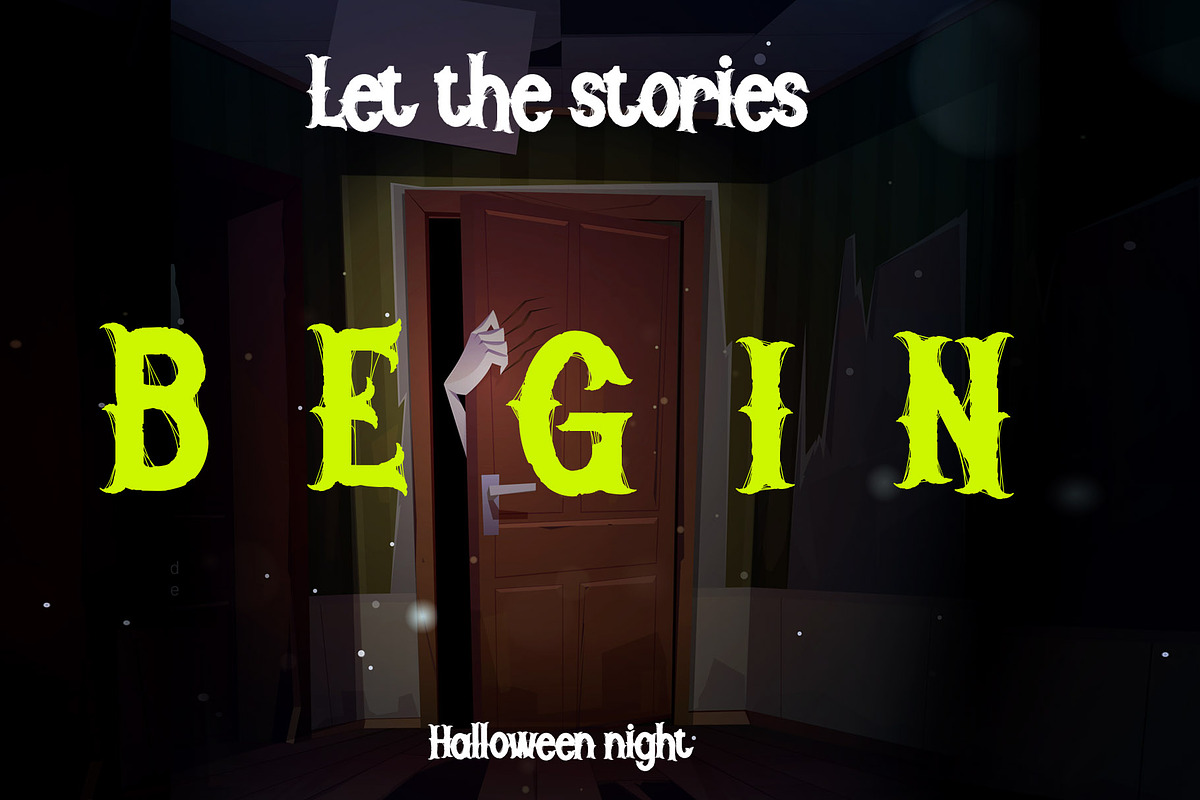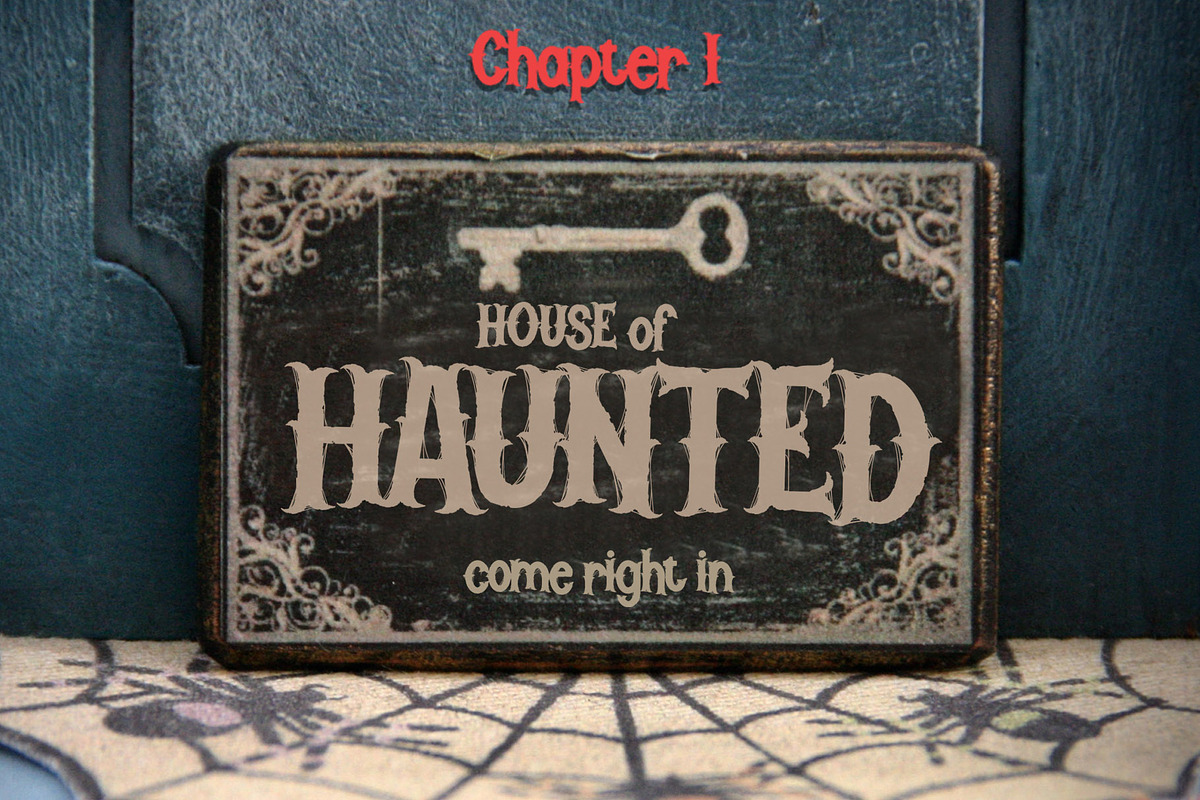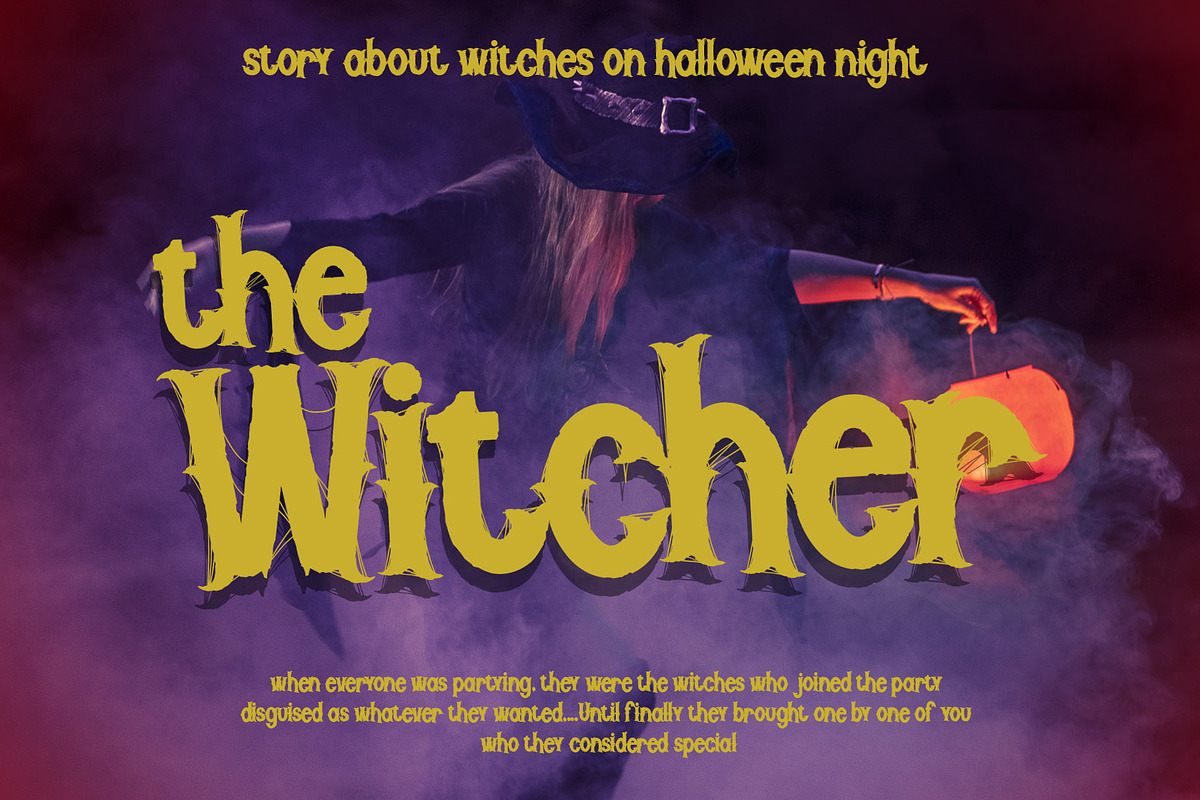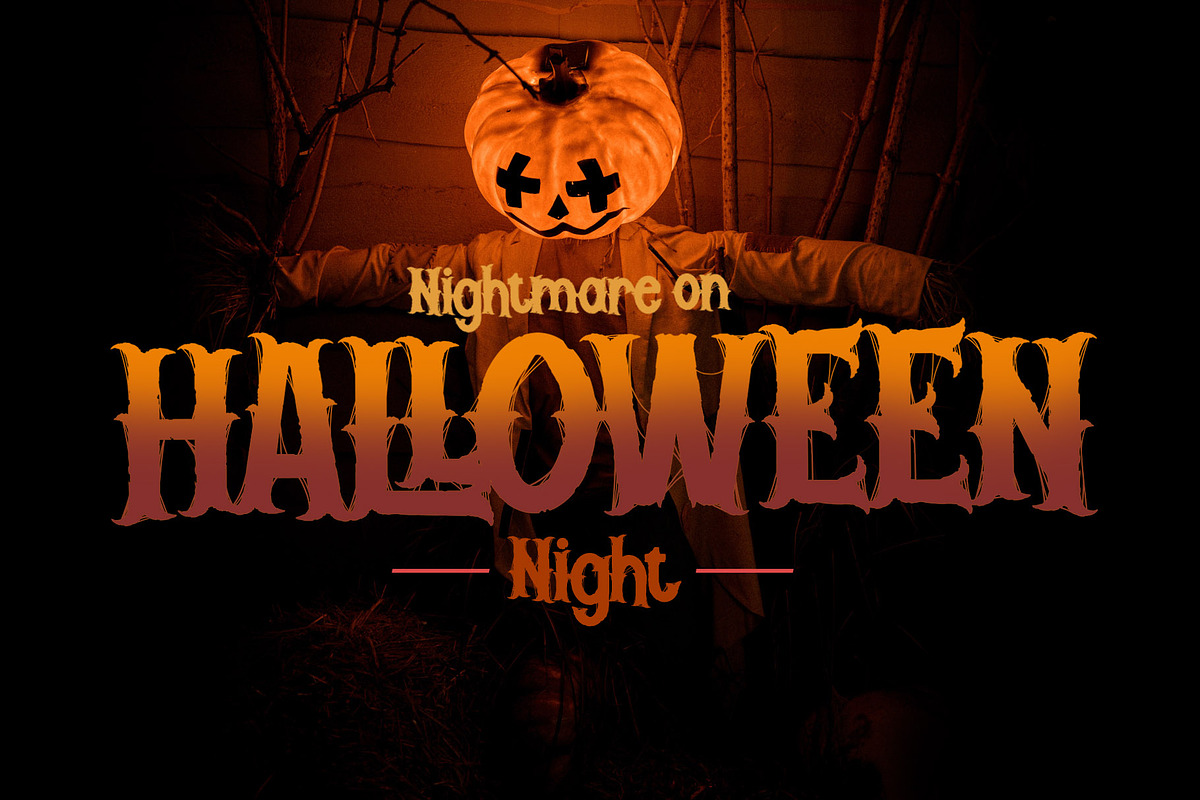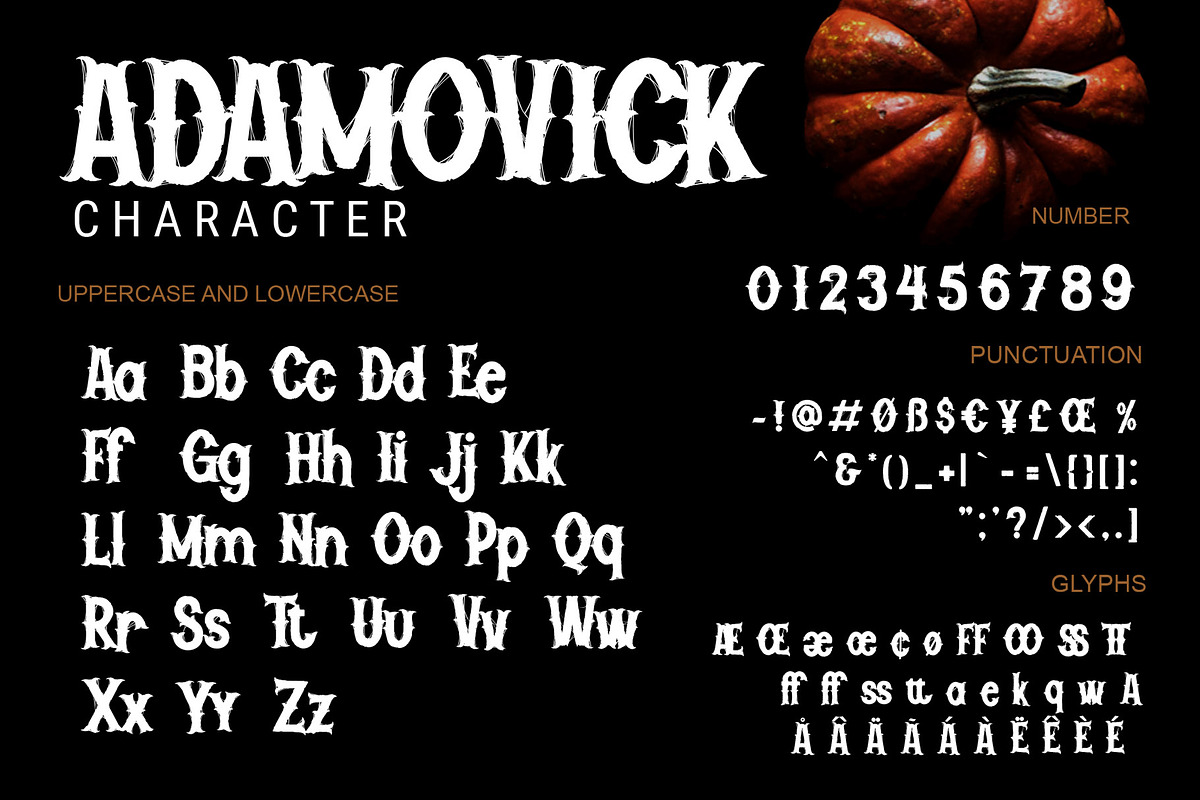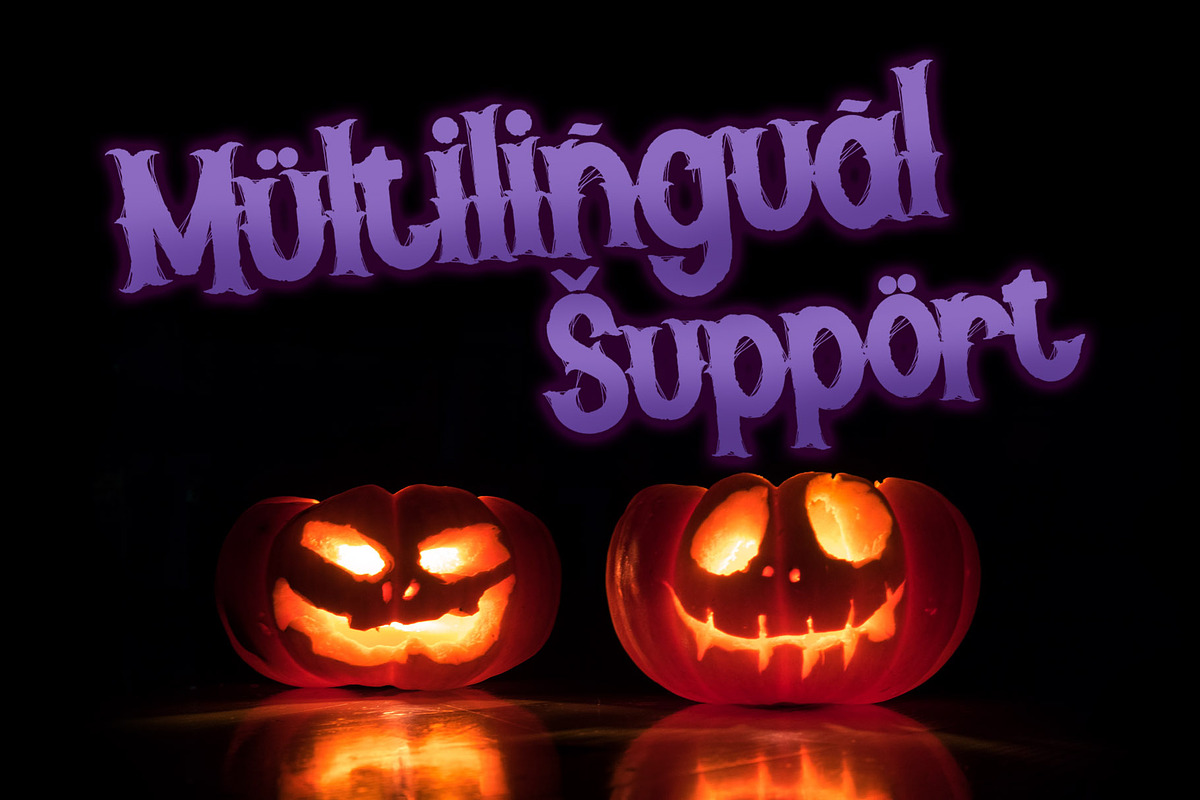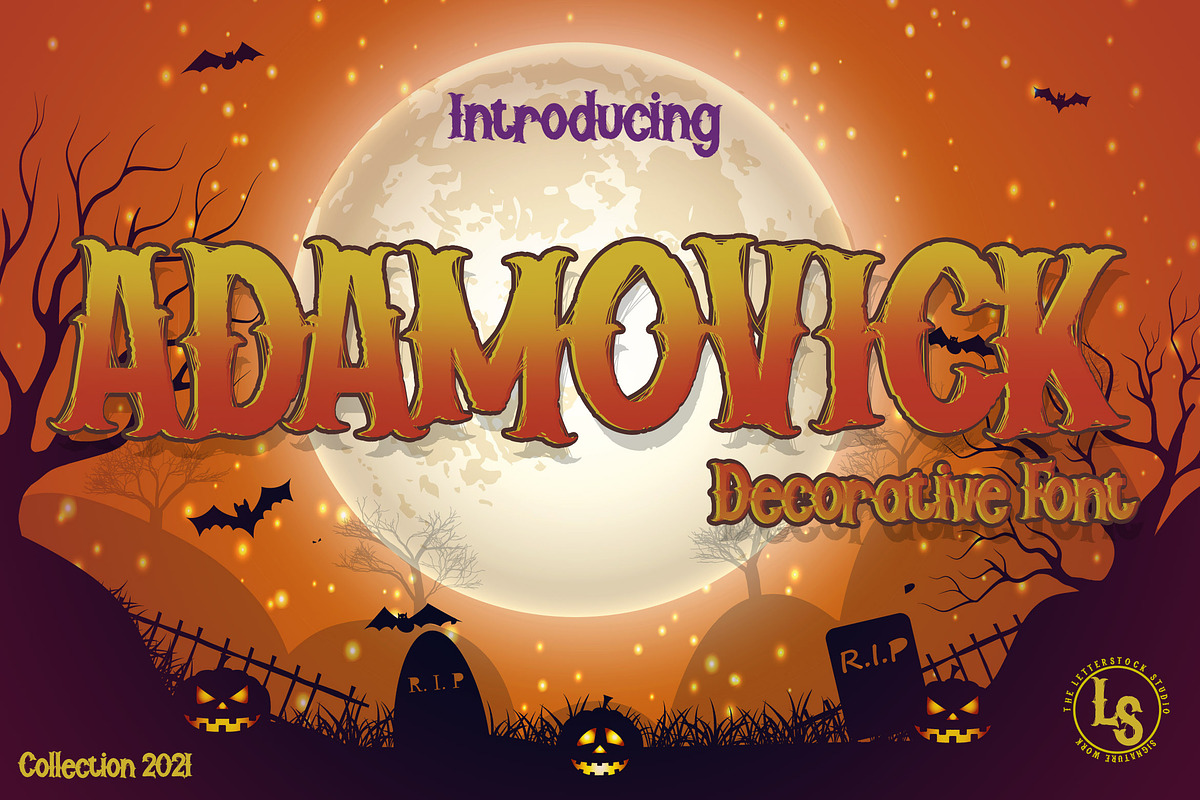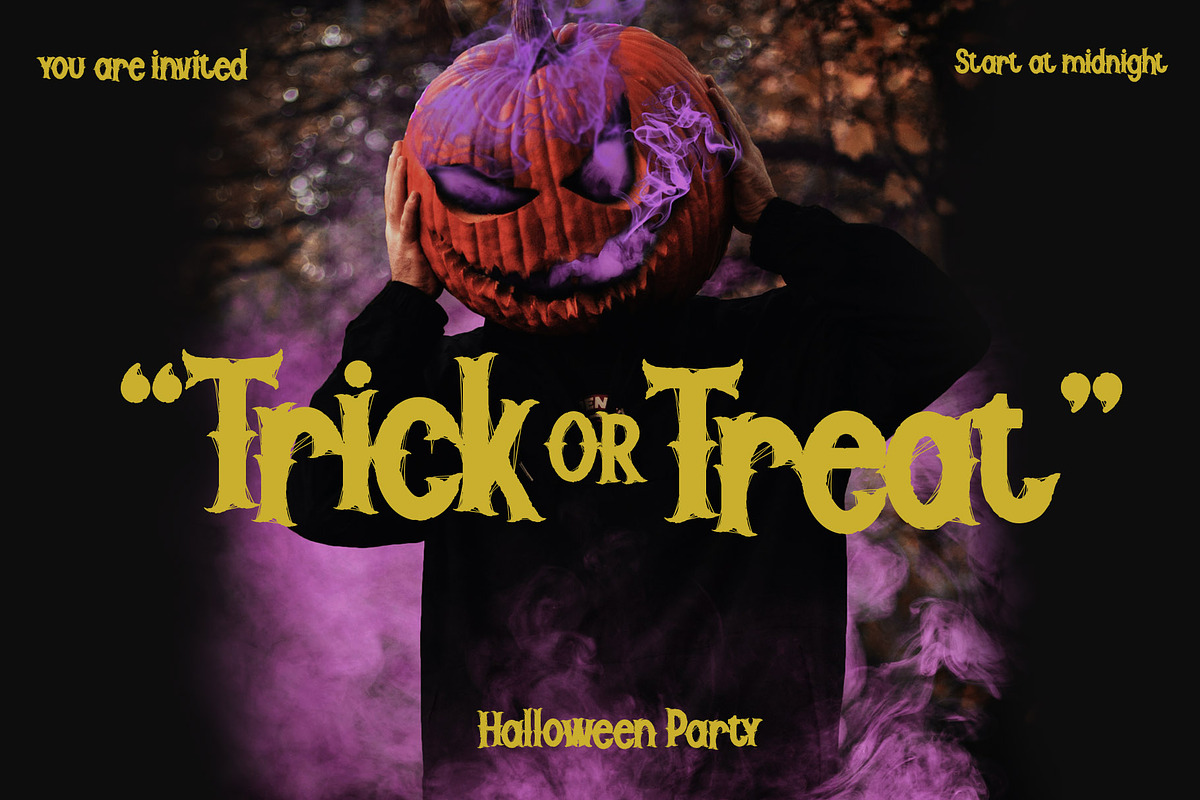
Adamovick
Adamovick Font
This pair was inspired by scary HALLOWEEN poster design that i saw on some HALLOWEEN event, It was crafted by hand specially to add natural handmade feeling in its brand identity than i make it clean with pentool.
Opentype features Adamovick font has 201 character set included Adamovick Font is very good looking in logo, labels, product packaging, HALLOWEEN invitations, advertising and others.